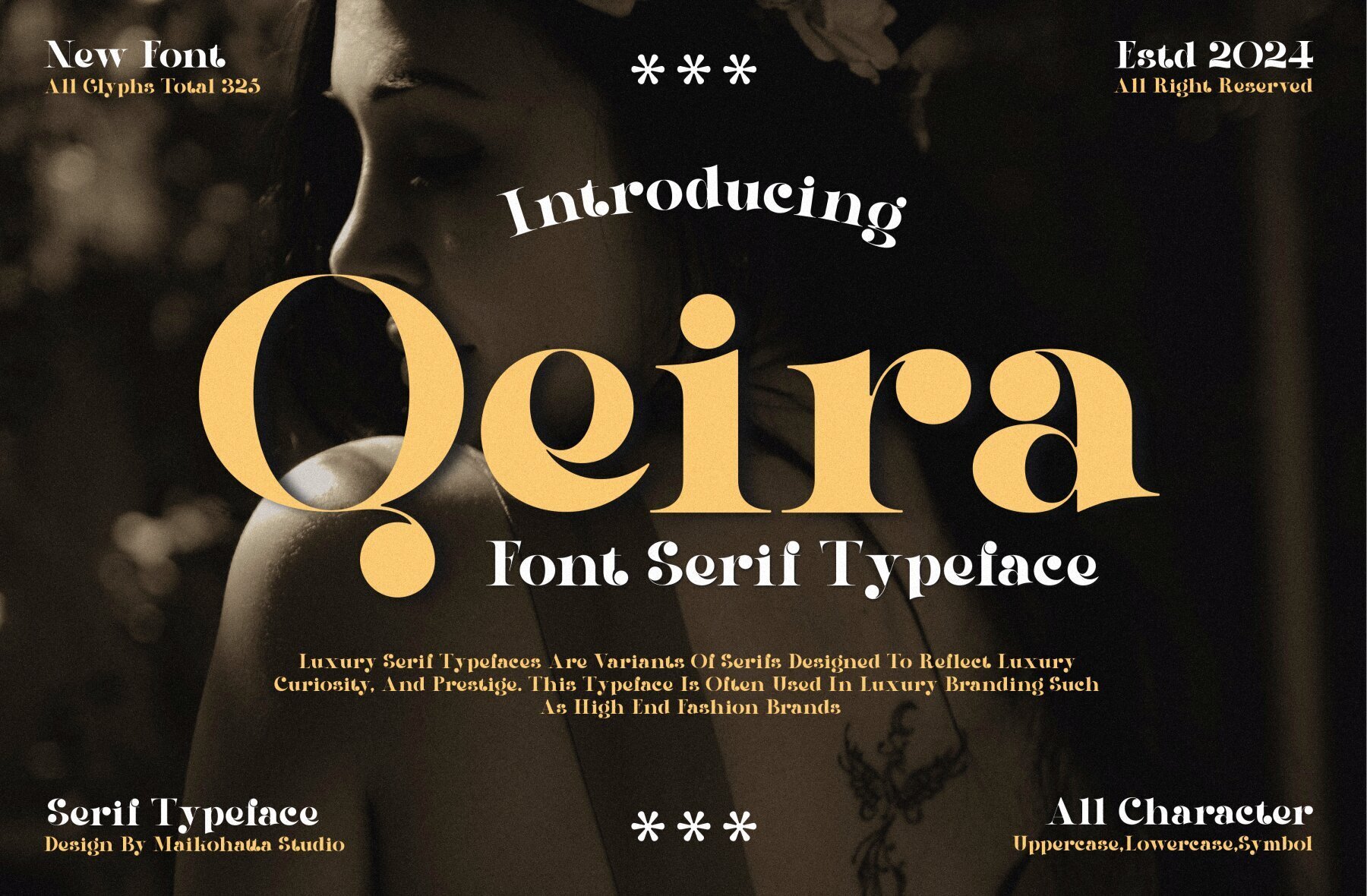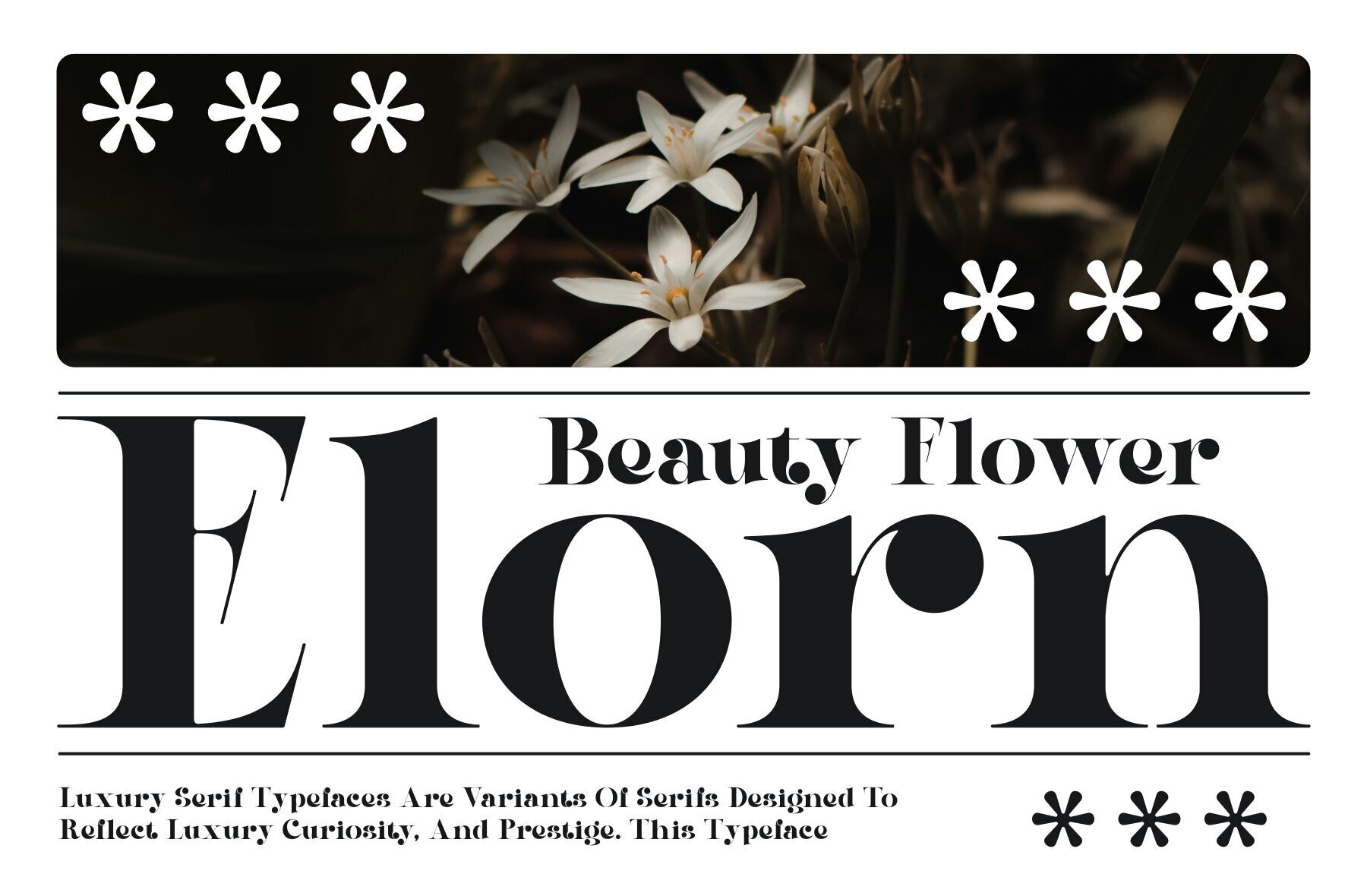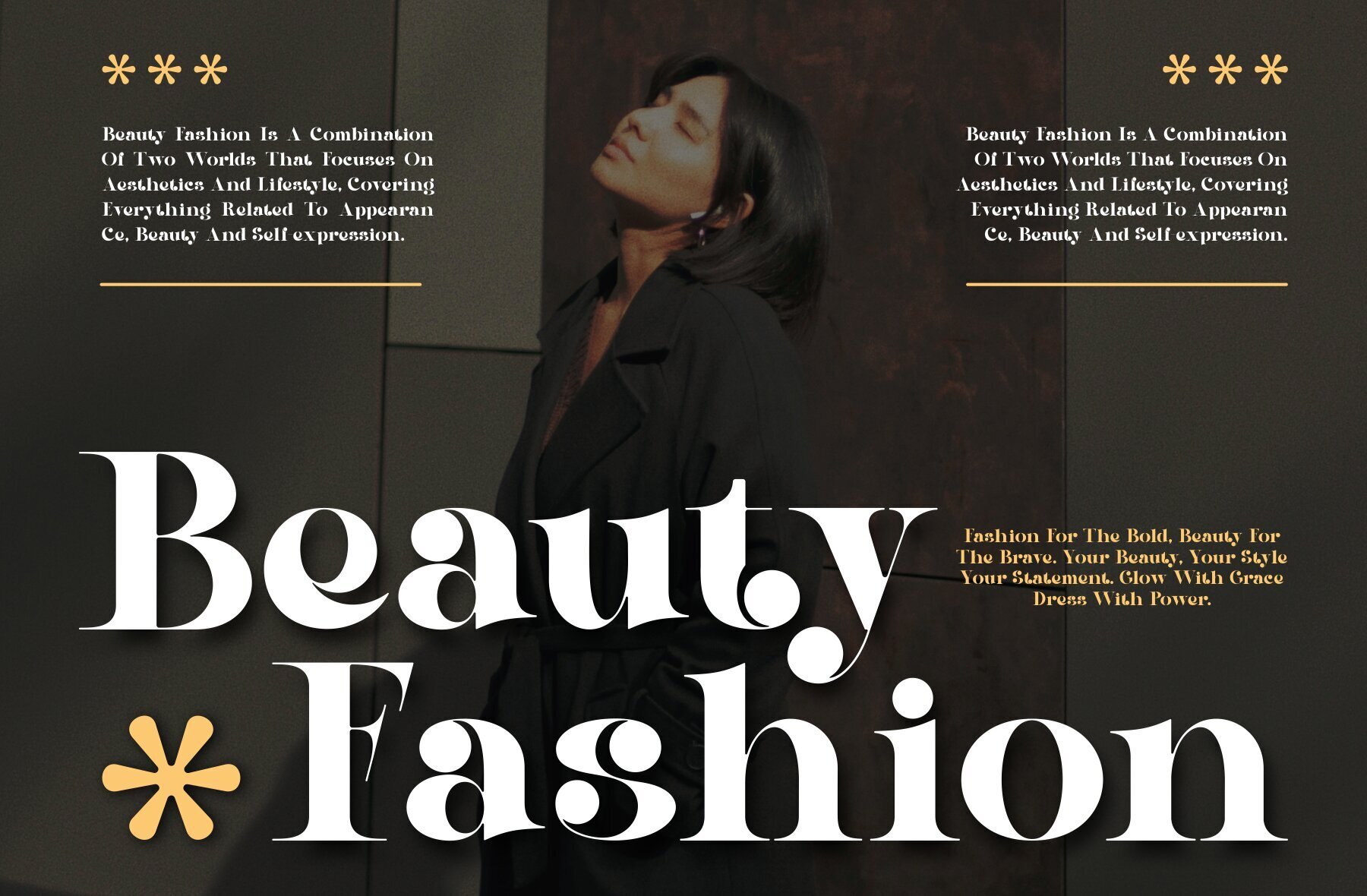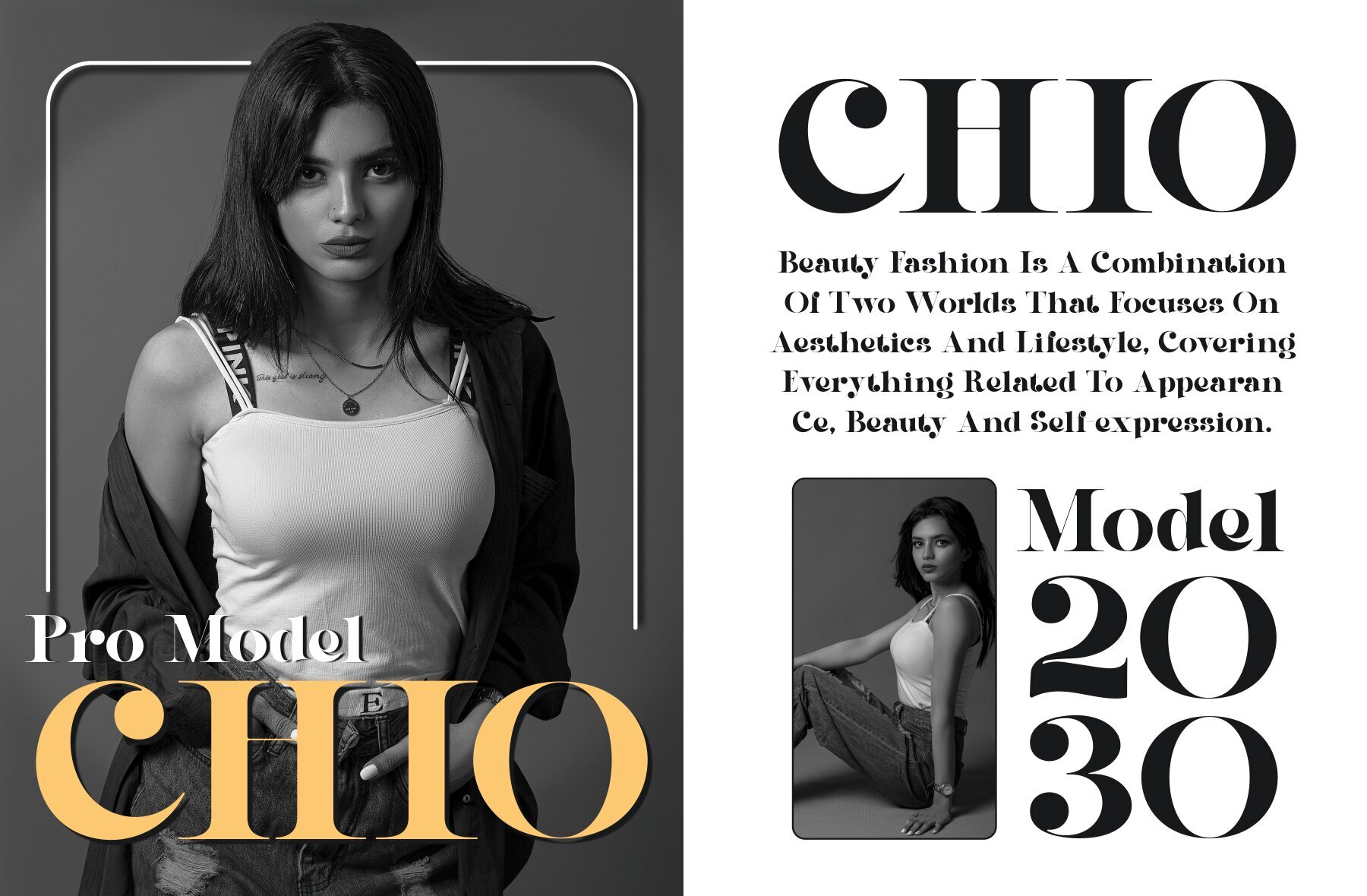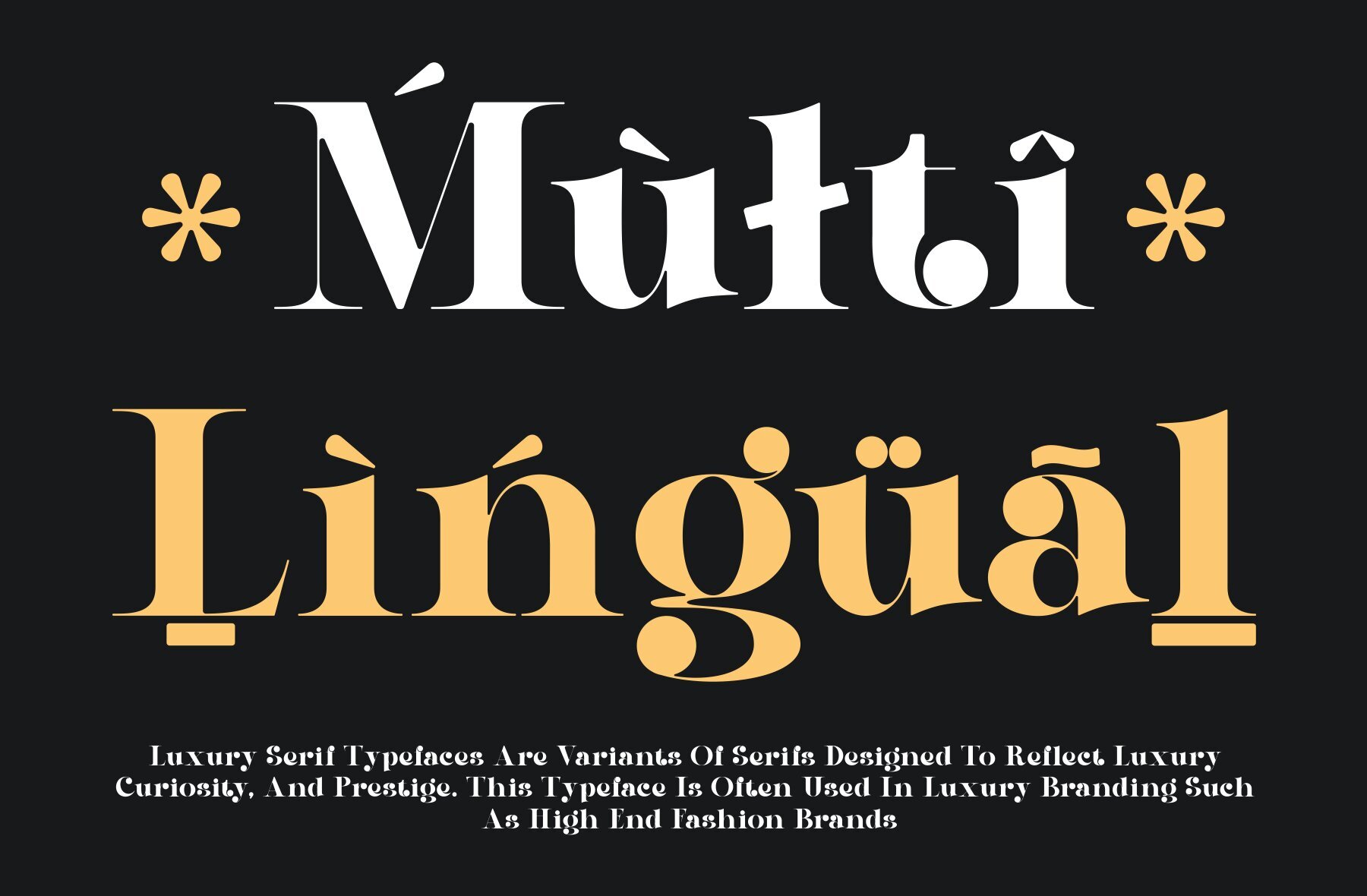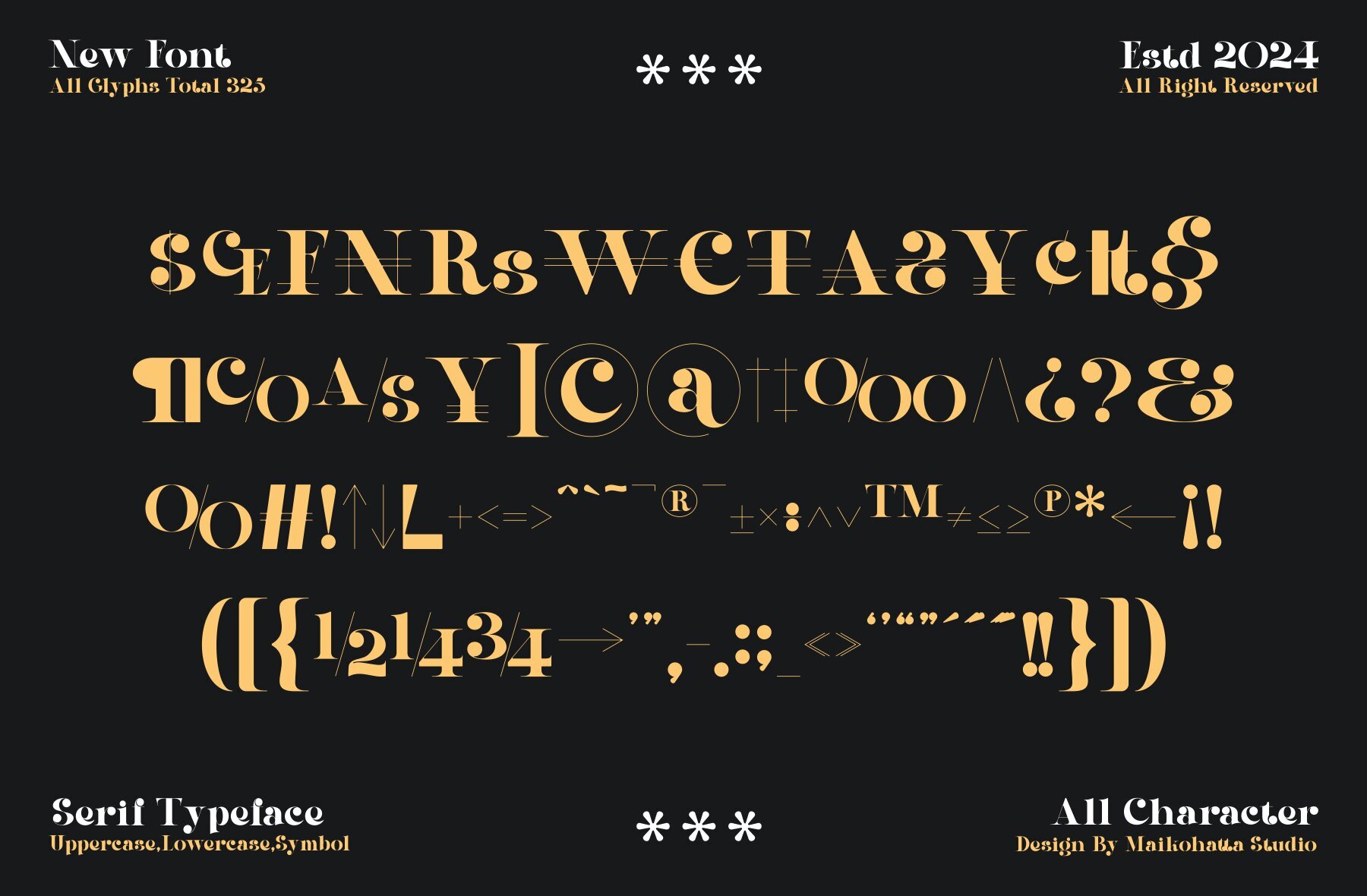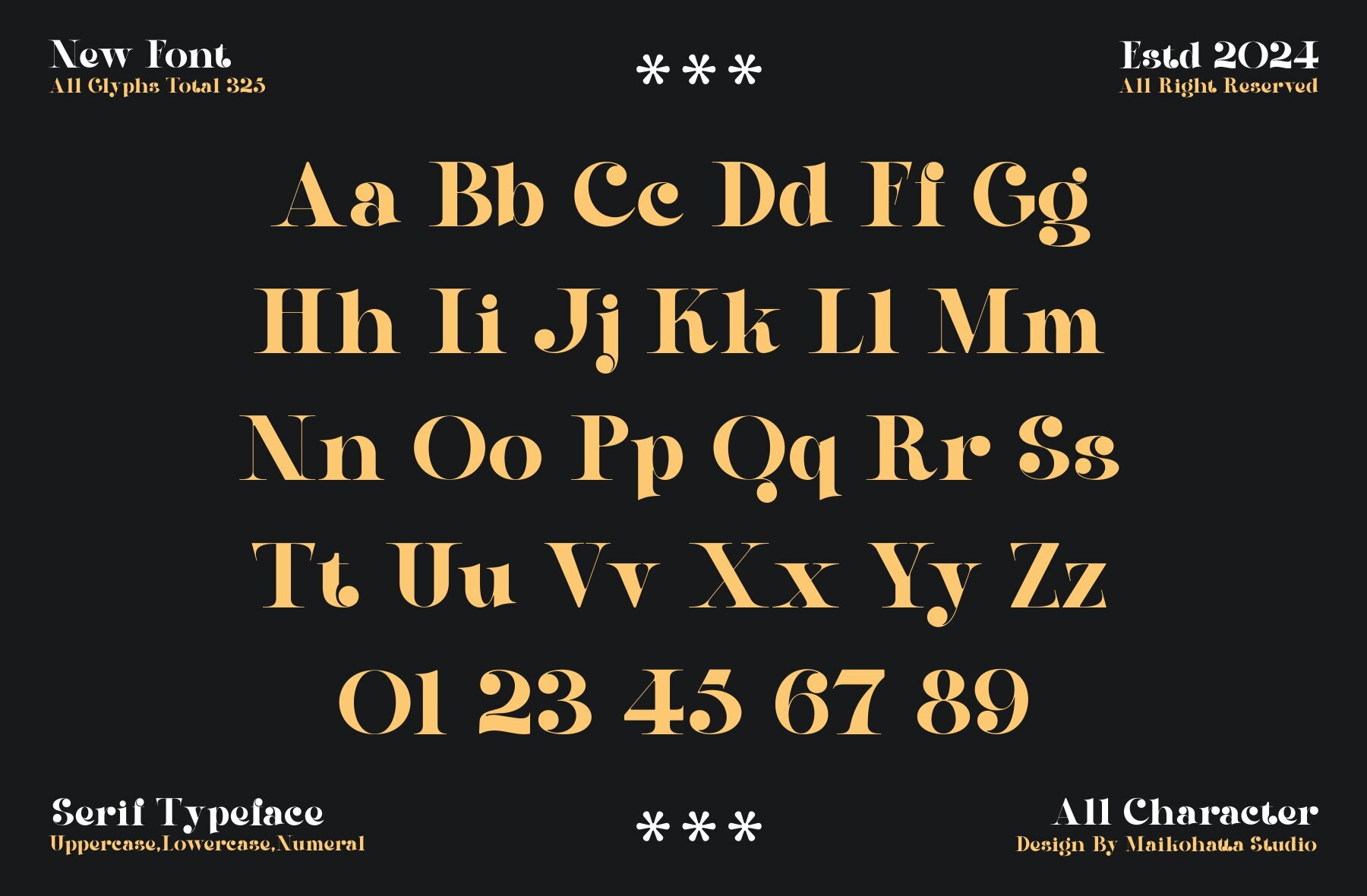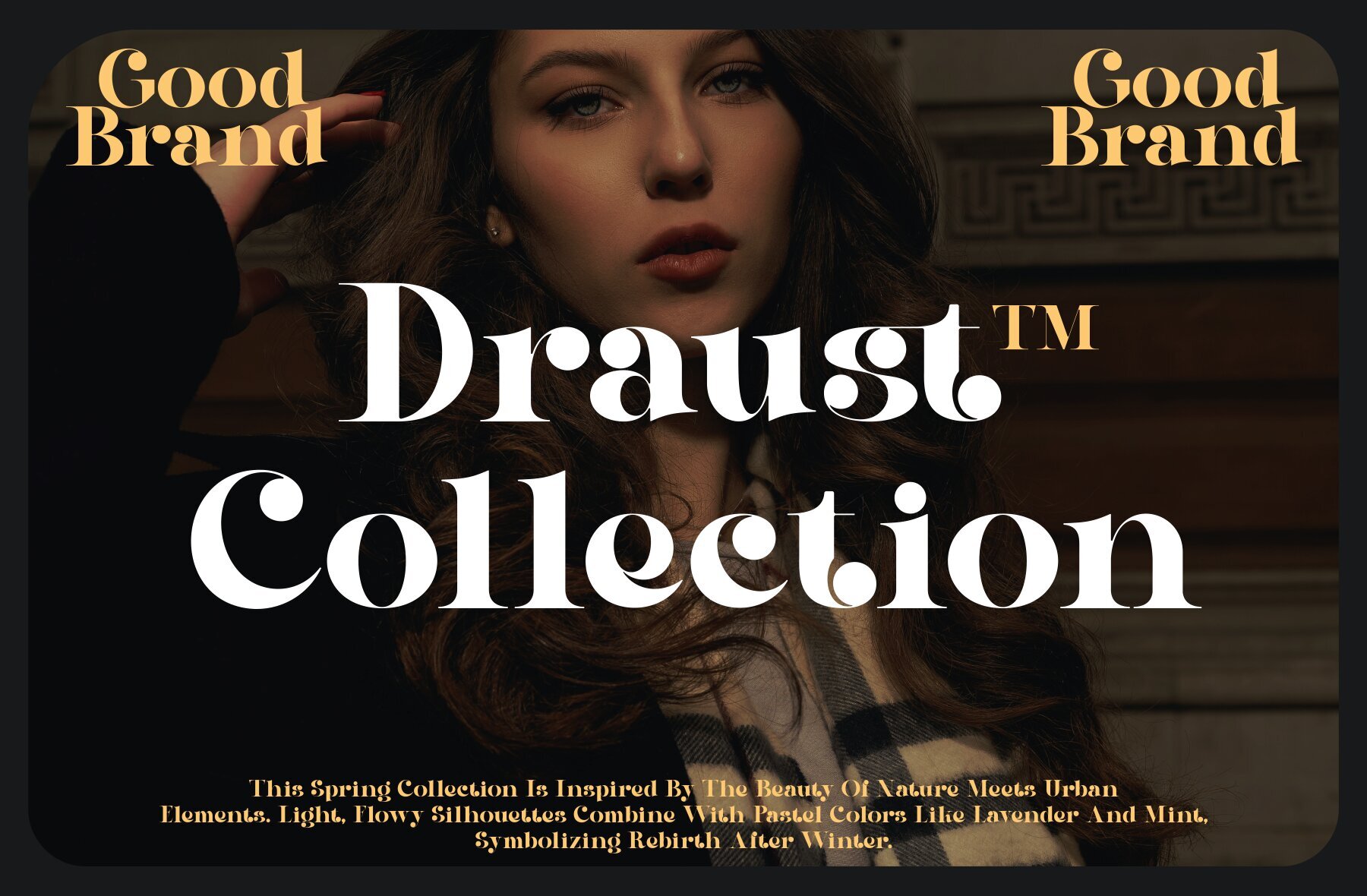
Qeira Font
Qeira
Qeira is an elegant serif typeface designed to convey luxury and firmness through its unique characteristics. Featuring balanced thin and thick lines, it combines gentle curves with clean serifs to produce an aesthetically striking appearance. The sharp corners and intricate details of each character enhance its sophisticated and elegant essence.
Qeira offers versatility with a comprehensive set of features, including both uppercase and lowercase letters. It supports multiple languages and includes ligatures, making it suitable for diverse design projects. Its distinctive style is perfect for designers seeking a typeface that exudes refinement and elegance.